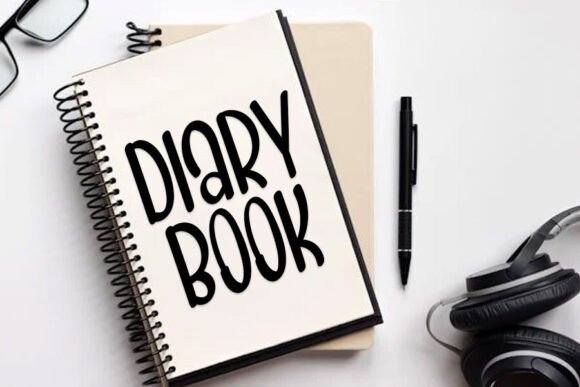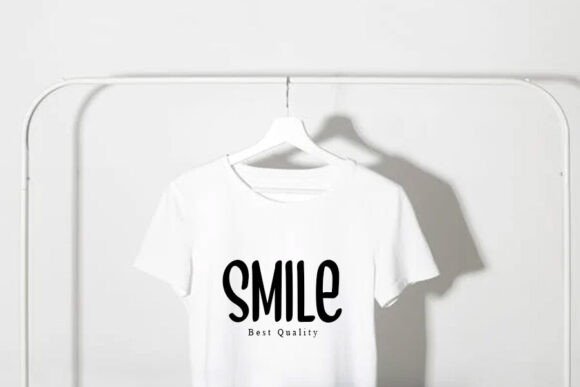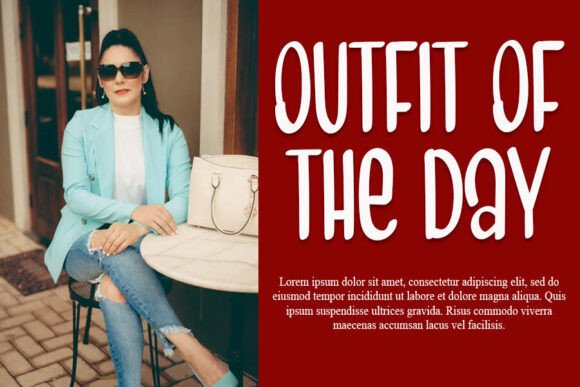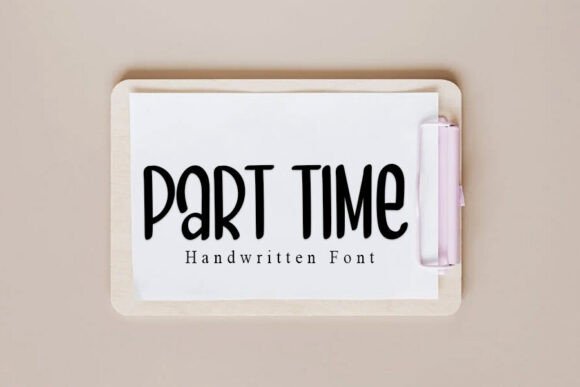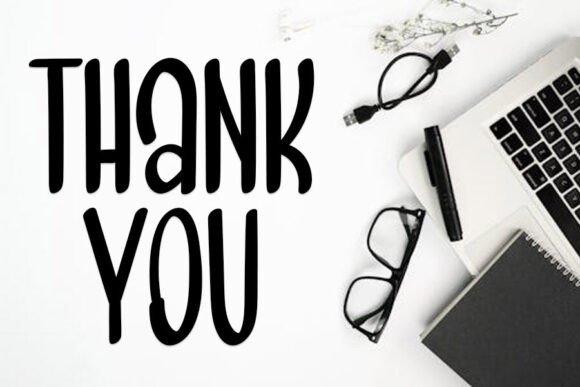
Introduction to Simple Monogram Font
Have you ever found yourself staring at a blank canvas, trying to bring a creative project to life? The blank page can be intimidating, but sometimes all it takes is the right tool to spark inspiration. For designers, the search for the perfect font can be a long and arduous one, but when you stumble upon the perfect match, it’s like finding a treasure trove of creative possibilities.
Enter the Simple Monogram Font, a lovely and timeless handwritten font that is sure to capture the attention of anyone who lays eyes on it. With its unique and beautiful touch, this font is the perfect choice for creating eye-catching logos, branding, and quotes. Whether you’re working on a high-end design project or a personal creative endeavor, the Simple Monogram Font is a valuable resource that can help bring your vision to life.
Key Features of Simple Monogram Font
- High-quality design resource suitable for various creative projects
- Includes a range of characters, including uppercase and lowercase letters, numbers, and special symbols
- Unique characteristic: Each monogram is carefully crafted to ensure a clean and elegant design, making it perfect for wedding invitations, stationery, and other formal events
- Perfect for designers looking for a free, high-quality design resource for their next creative project
Honest Review: Simple Monogram Font
I recently had the chance to work with the Simple Monogram Font, and I’m excited to share my honest thoughts with you. As a designer, I’m always on the lookout for high-quality design resources that make my creative projects shine. And let me tell you, this font delivers.
- ✨ The font is incredibly easy to use, with a clean and simple design that works perfectly for monogram-style graphics.
- ✨ The transparent background option is a huge plus, allowing me to easily layer my designs without worrying about unwanted backgrounds.
That being said, I do have a few minor complaints. The font is only available in a limited number of styles, which might not be ideal for designers who need a lot of customization options.
- ⚠️ The limited style options might not be suitable for complex design projects.
Overall, I’m really impressed with the Simple Monogram Font. It’s a high-quality design resource that’s perfect for simple, monogram-style graphics. While it may have some limitations, I think it’s well worth checking out for any designer looking to add some elegance to their creative projects.
Tips for Getting the Most Out of Simple Monogram Font
For a high-quality design, use the Simple Monogram Font in conjunction with other design resources, such as graphics and illustrations. Experiment with different font sizes and colors to create a unique and creative project.
The Simple Monogram Font is a versatile design resource suitable for various creative projects, including business cards, invitations, and social media graphics. You can also use it to create a free download, such as a printable art or a digital invitation template.